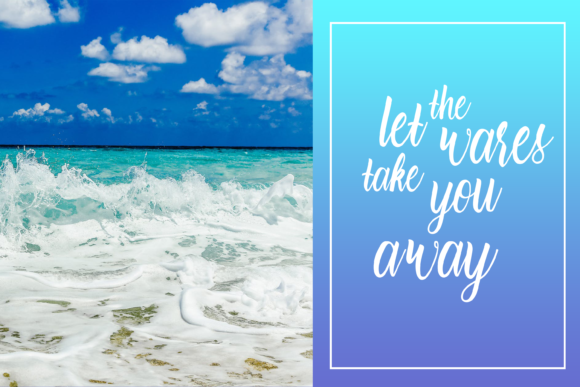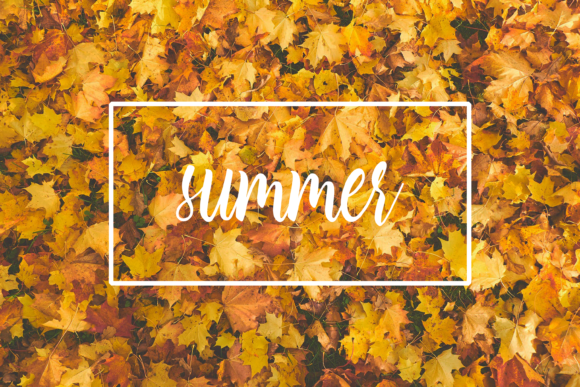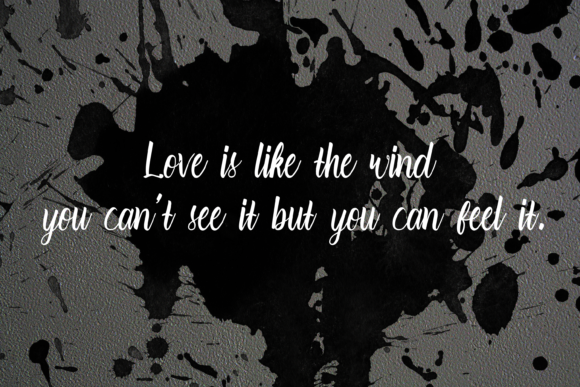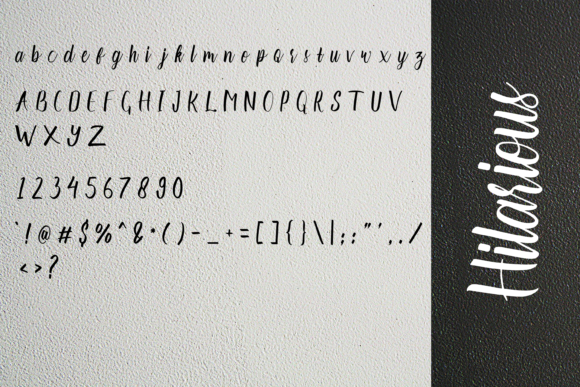
When Creativity Strikes
Have you ever found yourself scribbling down ideas in the middle of the night, desperate to capture the perfect phrase or sentence? We’ve all been there, trying to channel our inner artist and come up with something truly unique. But sometimes, all we need is the right tool to bring our vision to life.
Enter the Hilarious Font, a stylish handwritten font that’s perfect for adding a touch of modern whimsy to any project. Whether you’re designing a brochure, creating a social media campaign, or simply writing a heartfelt letter, this font is sure to bring a smile to your face. And with its versatility, it’s a valuable asset for designers looking to add some personality to their work.
Hilarious Font Key Features
- Font Family: Hilarious Font comes in two styles – Regular and Bold, with a total of 512 characters in the Regular style and 512 characters in the Bold style.
- Unique Characteristics: The Hilarious Font features an exaggerated, playful design with exaggerated letterforms and a mix of rounded and angular shapes, adding a touch of whimsy to any text.
- Language Support: Supports over 100 languages, including Latin, Cyrillic, and Greek scripts, making it a versatile choice for multilingual projects.
Hilarious Font Review
I’ve had the chance to play around with the “Hilarious Font” and I’m here to share my honest thoughts on it.
- The font has a quirky, hand-drawn feel to it that can add a lot of personality to your designs.
- It’s great for creating a playful, informal tone in marketing materials, social media graphics, or even children’s book illustrations.
- The font is highly customizable, allowing you to adjust the size, color, and style to fit your design needs.
- The font may not be suitable for formal or professional designs, as it can come across as too casual or unpolished.
- Some letters may not render correctly in certain fonts or at smaller sizes, which can affect readability.
Overall, I think “Hilarious Font” is a fun and creative option for designers looking to add some personality to their work. However, it’s essential to consider the context and limitations before using it in your designs.
Hilarious Font: A Practical Application Guide
Tips: Use Hilarious Font for headings and titles to add a playful touch to your design. Experiment with different font sizes and colors to create a visually appealing effect.
Tips: Use Hilarious Font to add a whimsical touch to your illustrations or graphics. Experiment with different font sizes and colors to create a unique effect.
Tips: Use Hilarious Font for titles, headings, and captions to add a lighthearted touch to your presentations or documents. Experiment with different font sizes and colors to create a visually appealing effect.
Hilarious Font is perfect for creating eye-catching headings, titles, and captions for:
– Social media posts
– Blog articles
– Marketing materials
– Infographics
– Presentations
Alternatives to “Hilarious Font” for Designers
1. Comic Sans MS
Comic Sans MS is a casual, playful font often used for informal or humorous content. It is ideal for social media posts, blog headers, and children’s materials. When to use: Informal designs, casual communication, or for a lighthearted tone.
Comparison to Hilarious Font: While both fonts aim for a humorous tone, Comic Sans MS is more approachable and less likely to be perceived as insincere. It’s a more versatile font for everyday use.
Pacifico is a modern, cursive script font with a relaxed feel. It’s suitable for headings, titles, and body text in creative projects. When to use: Designing a blog, magazine, or other print materials that require a friendly tone.
Comparison to Hilarious Font: Pacifico has a softer, more elegant feel than Hilarious Font, making it more suitable for sophisticated designs. It’s a better choice for designs that require a touch of elegance.
What is the technical specification of Hilarious Font?
– Font family: Hilarious
– Font style: Regular
– Font weight: 400
– Kerning: Yes
– Ligatures: Yes